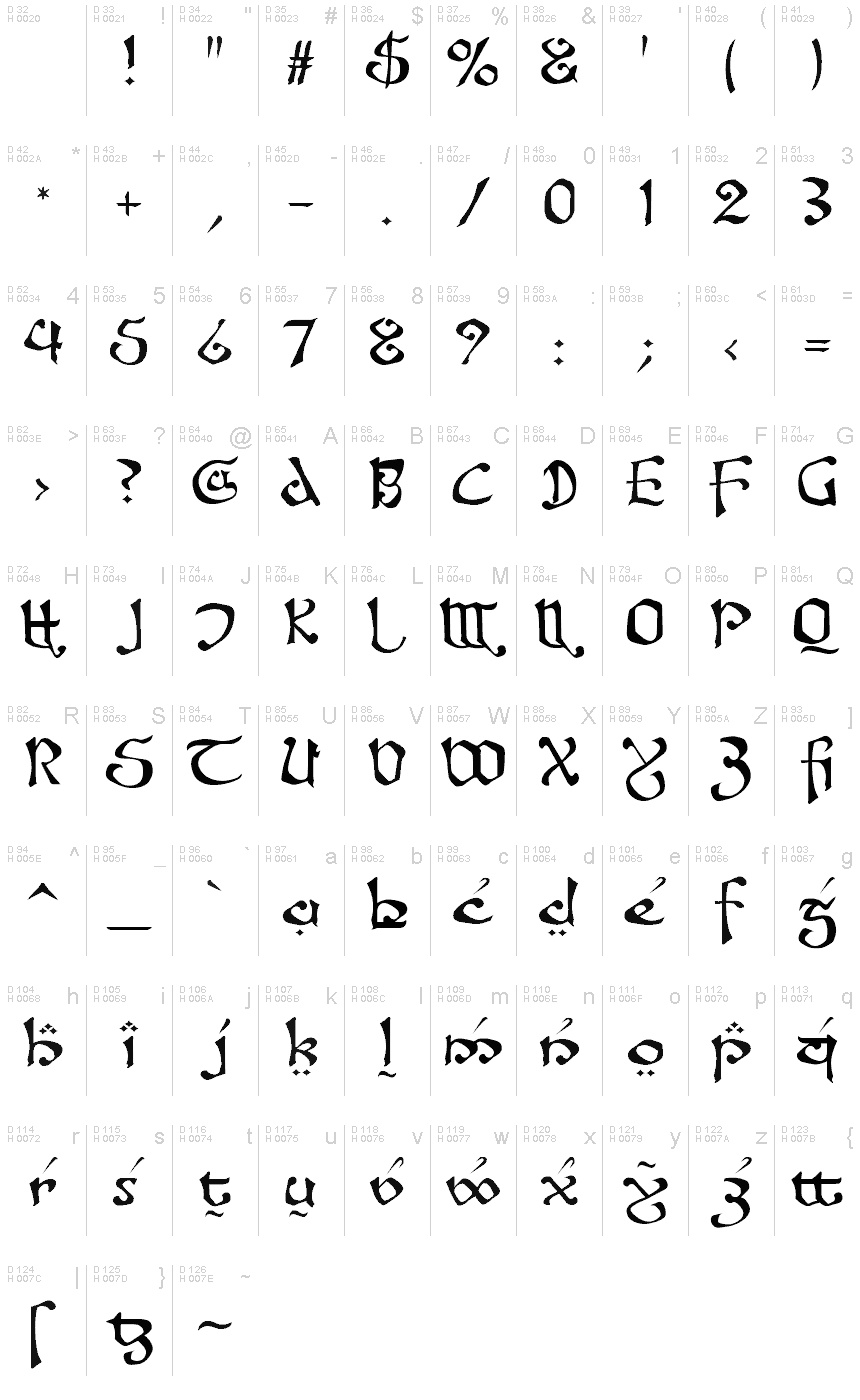
Fanjofey Leoda AH Regular
Fanjofey Leoda AH font by Fontgrube Andreas Höfeld is a free decorative display typeface with a wonderfully strange, storybook energy. The letters twist and flare like hand‑inked calligraphy, with inky blobs, diamond dots, and sharp little hooks that feel part medieval script, part fantasy sigil. Uneven strokes and playful curves give it a handmade, slightly mysterious charm that immediately pulls the eye.
Using Fanjofey Leoda AH, headlines feel like chapter titles from a dark fairy tale, which makes this free font a natural fit for fantasy book covers, RPG titles, tarot or occult branding, band logos, event posters, and themed invitations. It works best big and bold, supported by a clean sans serif for body text so its ornate shapes can take center stage without sacrificing readability.
This typeface is for all fans of "Lord of the Rings", the literary classic by R.R. Tolkien, recently popular through the LOTR and Hobbit trilogies.
For his fictional world "Middle Earth" Tolkien designed the "Tengwar" alphabet. Supposedly the writing of the Elves, Tolkien also used it to write the languages (invented by himself) of other races in Middle Earth.
Fanjofey is a latin alphabet - using many traits of the Tengwar letters, thus giving your texts a "Lord-of-the-Rings" look and feel. Some of the vowel signs above and below the letters are added in this companion typeface "Fanjofey Leoda", enhancing the "Elvish" feeling.